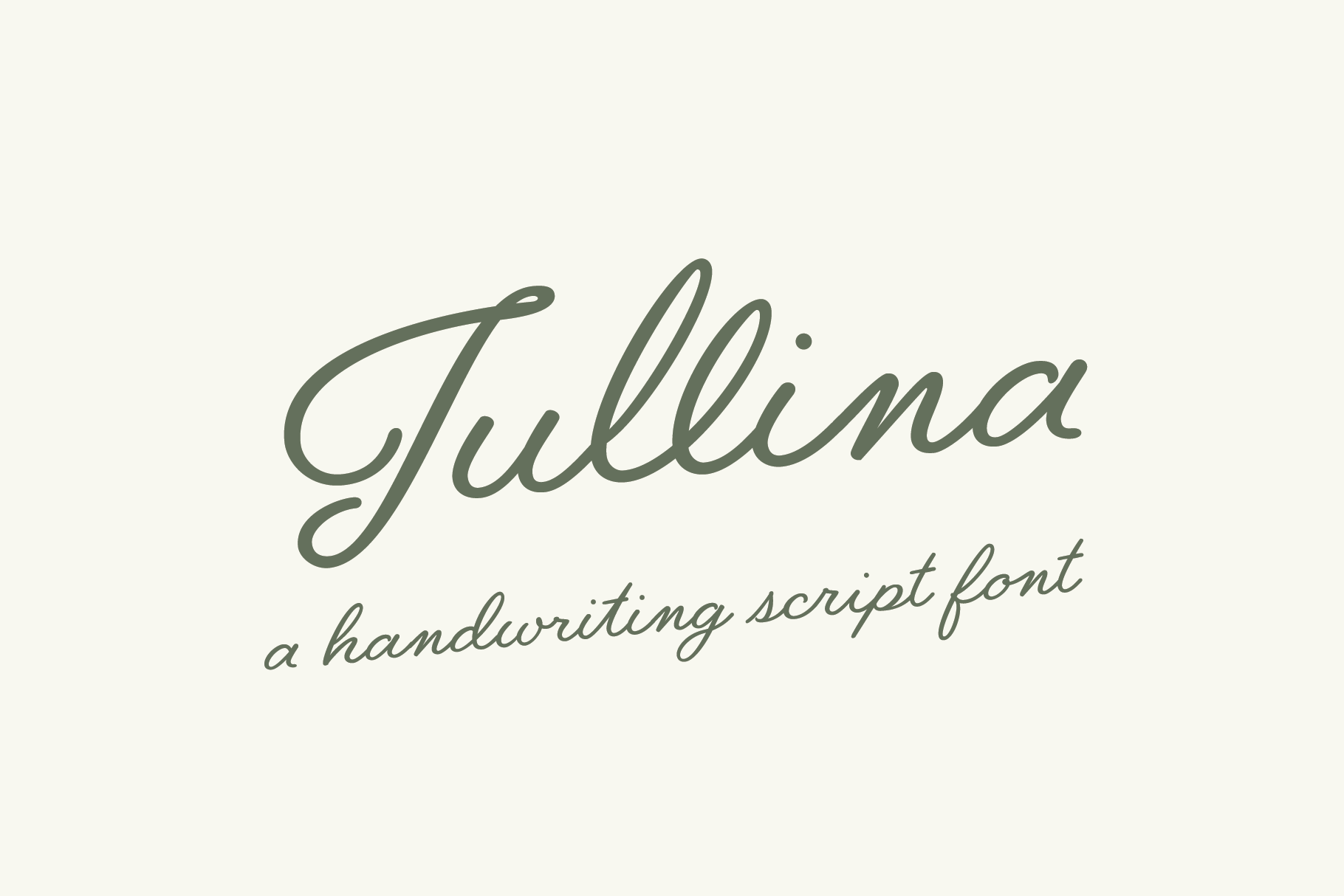
Jullina - Handwriting Script Font
Jullina is a charming script font that adds an organic, handwritten feel to your designs while staying polished and clean. It’s a versatile font that would work great in many different projects including branding, social media posts, product packaging, product designs, labels, and invitations.
Jullina comes with 359 glyphs including uppercase, lowercase, numerals, punctuation and includes OpenType features such as an alternate Uppercase set and 47 ligatures to create an authentic, handmade feel.
359 glyphs — Uppercase, lowercase, numbers, symbols, punctuation, 47 styled ligatures & an alternate Uppercase set for more customization.
Multilingual Support — Multilingual Support is included for Western & Central European Languages.